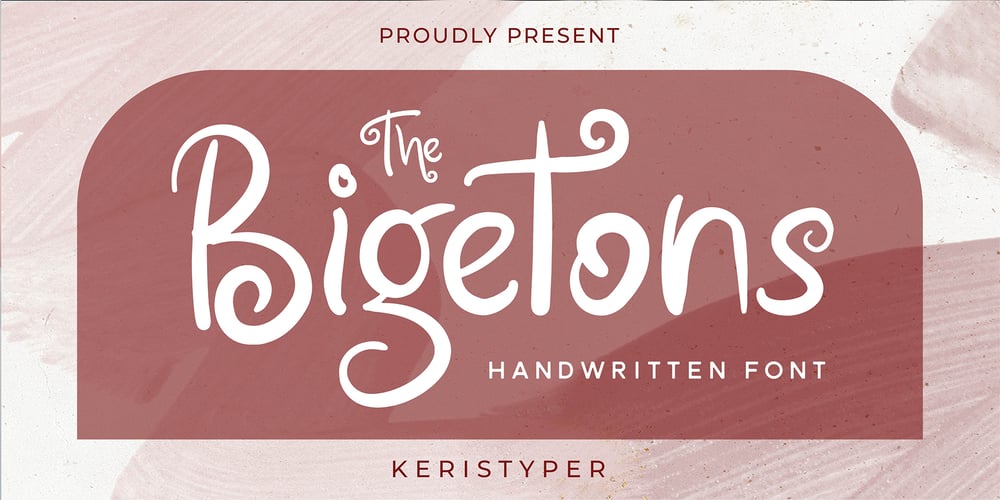
Bigetons
Bigetons font
Bigetons Font Family was designed by Tezar Tantular and published by Keristyper Studio. Bigetons contains 1 styles and family package options. Bigetons is born from bold and fun style fonts. This font is good for logo design, Social media, Movie Titles, Books Titles, short text even long text letters, and good for your secondary text font with sans or serif.Featured: Standard Uppercase & Lowercase Numeral & Punctuation Multilingual : ä ö ü Ä Ö Ü ß ¿ ¡ Alternate & Ligature PUA encoded We recommend programs that support the OpenType feature and the Glyphs panel such as Adobe applications or Corel Draw. so you can use all the variations of the glyphs. Hope you enjoy our fonts!